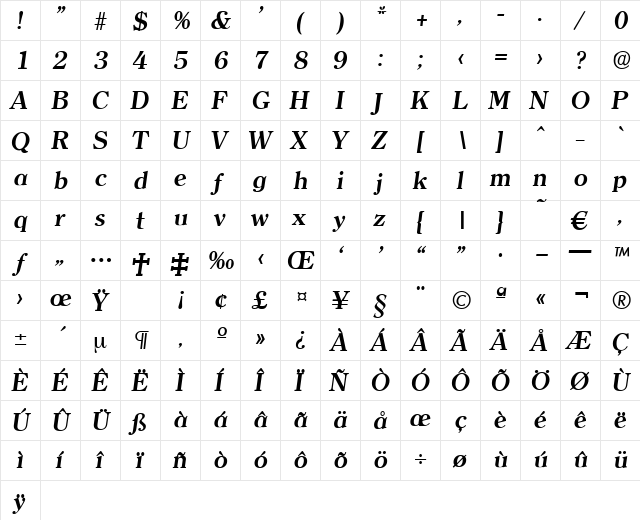
Clerface-DemiBoldIta Regular Font Preview
Clerface-DemiBoldIta Regular
Clerface-DemiBoldIta Regular Font Details
Design Context for Clerface-DemiBoldIta Typeface
Clerface-DemiBoldIta is a composed and adaptable typeface that performs quietly and consistently across a wide range of design contexts. Its bold stroke weight gives it real presence on the page.